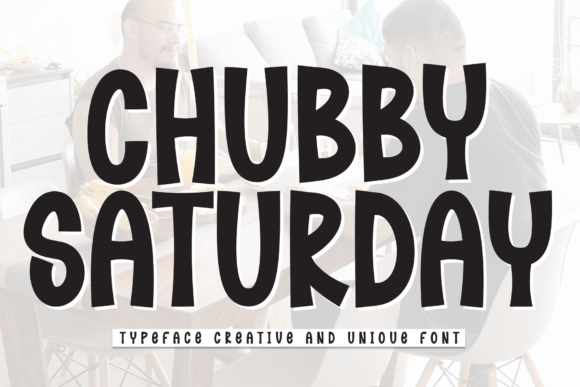
Chubby Saturday: A Fun and Versatile Display Font
In the world of typography, finding a typeface that balances personality with readability can be a challenge. Chubby Saturday steps in as a delightful solution for those seeking a font that feels approachable, playful, yet polished enough for professional use. It is not just another bubble letter; it is a carefully crafted display font designed to bring warmth and energy to your visual projects. Whether you are crafting handmade goods, designing digital assets, creating engaging presentations, or making personalized greeting cards, this typeface offers a unique character that instantly elevates the mood of your design.
Understanding the Character of Chubby Saturday
At its core, Chubby Saturday is defined by its rounded forms and generous spacing. Unlike rigid, geometric sans-serifs that can feel cold or corporate, this font mimics the organic flow of hand-lettering while maintaining the consistency needed for digital applications. The "chubby" aspect refers to the thick, soft strokes that give each letter a friendly, huggable appearance. This quality makes it an excellent choice for brands or individuals who want to communicate trust, creativity, and fun without sacrificing legibility.
The versatility of this display font lies in its ability to adapt to various contexts. While it naturally leans towards casual and creative themes, its clean lines prevent it from looking messy or childish when used correctly. For beginners, this means you don't need advanced graphic design skills to make a project look professional. The font does much of the heavy lifting by providing a strong visual foundation that guides the viewer's eye effortlessly across headlines and short text blocks.
Ideal Applications for Creative Projects
The true value of Chubby Saturday becomes apparent when you explore where it fits best in your workflow. Because it is a display font, it shines brightest in headlines, logos, and short phrases rather than long paragraphs of body text. Here are some of the most effective ways to utilize it:
- Greeting Card Making: If you create physical or digital cards, this font is perfect for the main message. Its rounded edges soften the tone, making it ideal for birthdays, baby showers, and celebratory announcements. It adds a personal touch that standard system fonts simply cannot achieve.
- Crafting and DIY: From t-shirt designs to vinyl stickers for water bottles, the bold weight of the letters ensures they remain visible even on textured surfaces. Hobbyists often choose this style because it looks like high-quality hand-lettering but saves hours of manual drawing time.
- Digital Designing: Social media graphics, Instagram stories, and YouTube thumbnails benefit greatly from the attention-grabbing nature of this typeface. In a crowded feed, the distinct shape of Chubby Saturday helps your content stand out immediately.
- Presentations: When delivering a pitch or teaching a class, slide titles written in this font can set a welcoming and energetic tone. It breaks the monotony of standard presentation templates and keeps the audience engaged.
Real-World Use Cases for Entrepreneurs and Marketers
For small business owners and marketers, typography is a key component of brand identity. Chubby Saturday is particularly well-suited for businesses in the lifestyle, food, education, and children's product sectors. Imagine a bakery using it for their weekly specials menu or a tutoring center using it for their welcome flyers. The font suggests a brand that is human-centric and community-focused.
Freelancers and bloggers also find immense utility in this typeface. It allows them to create custom headers for blog posts or newsletter banners that feel cohesive with their personal brand voice. Instead of relying on stock images with generic text overlays, creators can apply this font directly to their own photography, resulting in a more authentic and customized aesthetic.
Design Principles for Using Display Fonts Effectively
While Chubby Saturday is versatile, using it effectively requires a bit of strategic thinking. One of the most common mistakes beginners make is overusing display fonts. Because the characters are thick and stylized, they can become overwhelming if used for large amounts of text. To maintain a clean and professional look, pair this font with a simple, neutral sans-serif or serif font for your body copy. This contrast creates a clear visual hierarchy, guiding the reader from the catchy headline to the informative details.
Color choice also plays a significant role. The rounded shapes of the font pop beautifully against solid backgrounds, but they can get lost on busy patterns. When designing, ensure there is sufficient contrast between the text color and the background. Additionally, consider the size at which the font will be viewed. On mobile screens, the thickness of the letters ensures readability, but on very small print materials, you may need to adjust the leading (line spacing) to prevent the letters from touching or blurring together.
Ultimately, the beauty of this font lies in its ability to bridge the gap between professional design and accessible creativity. It empowers users of all skill levels to produce work that looks intentional and polished. By understanding its strengths and limitations, you can leverage its unique charm to create memorable visuals that resonate with people.